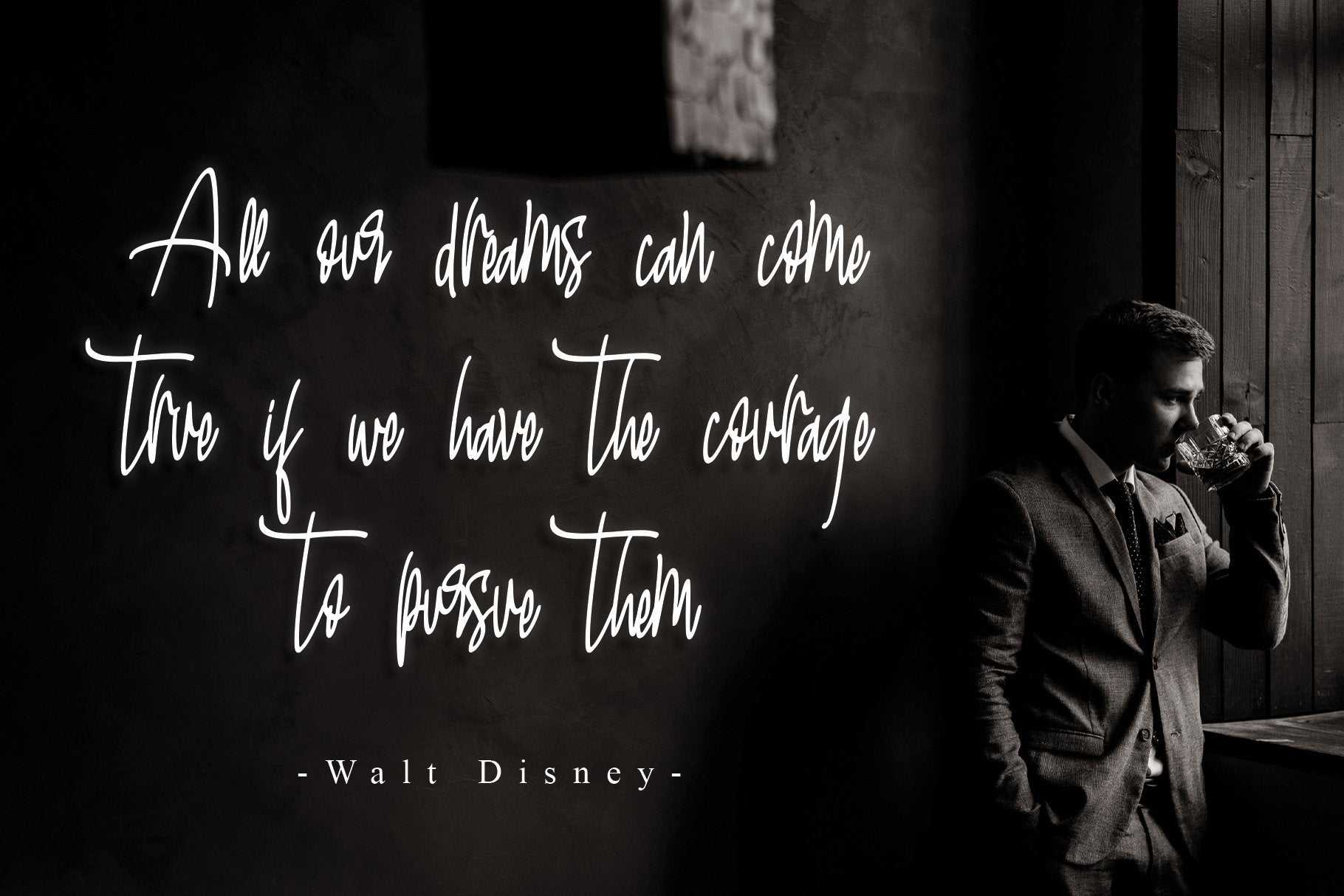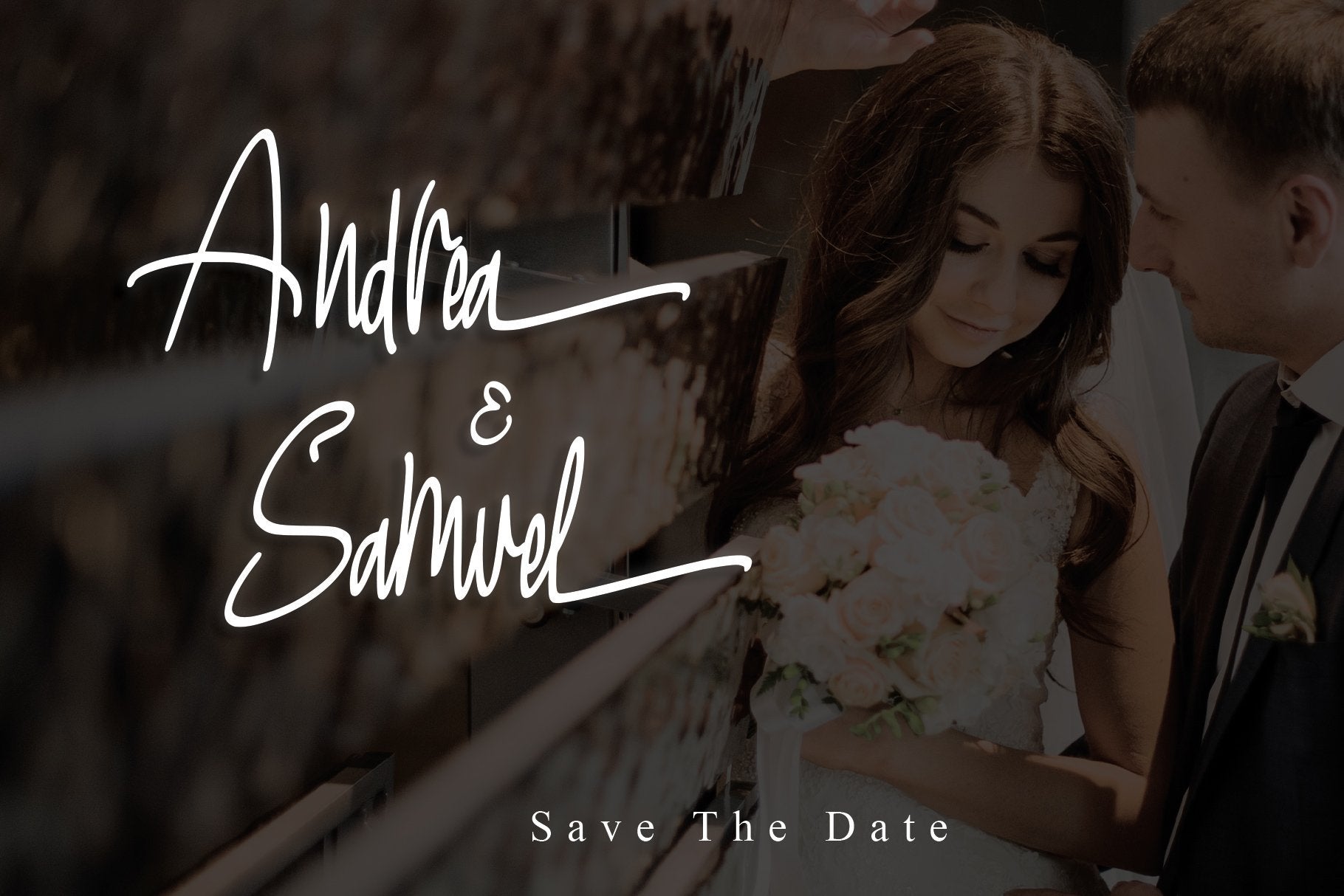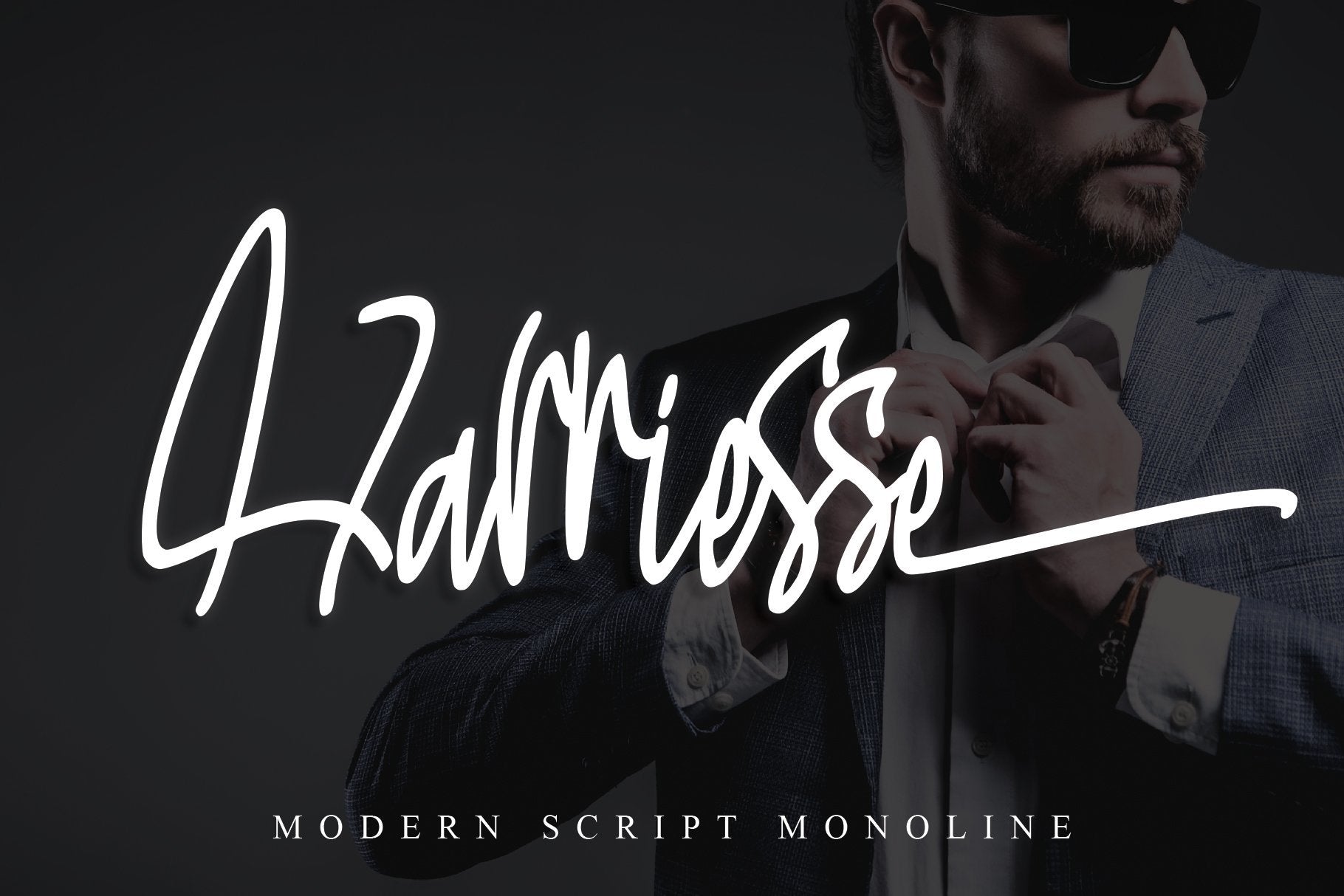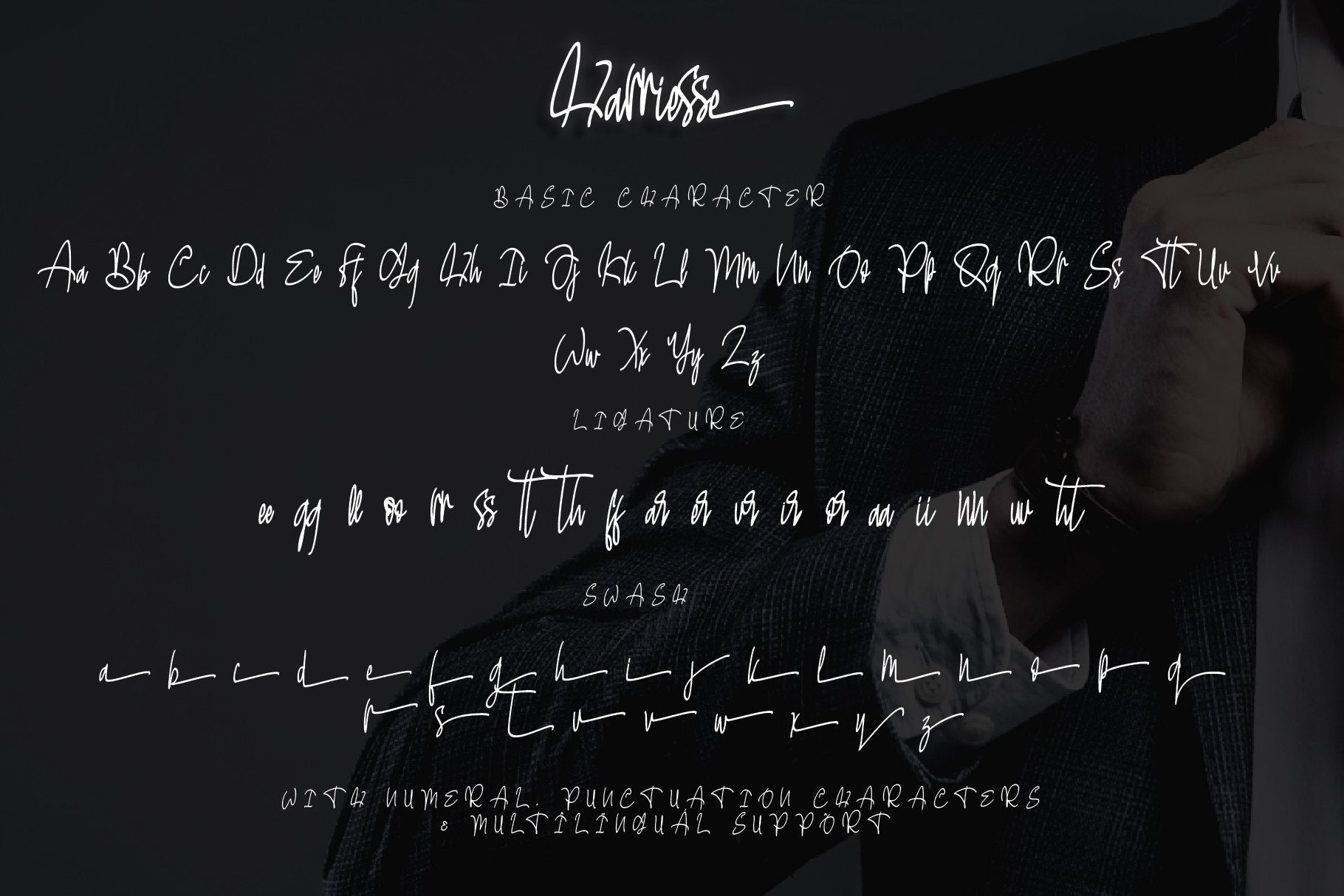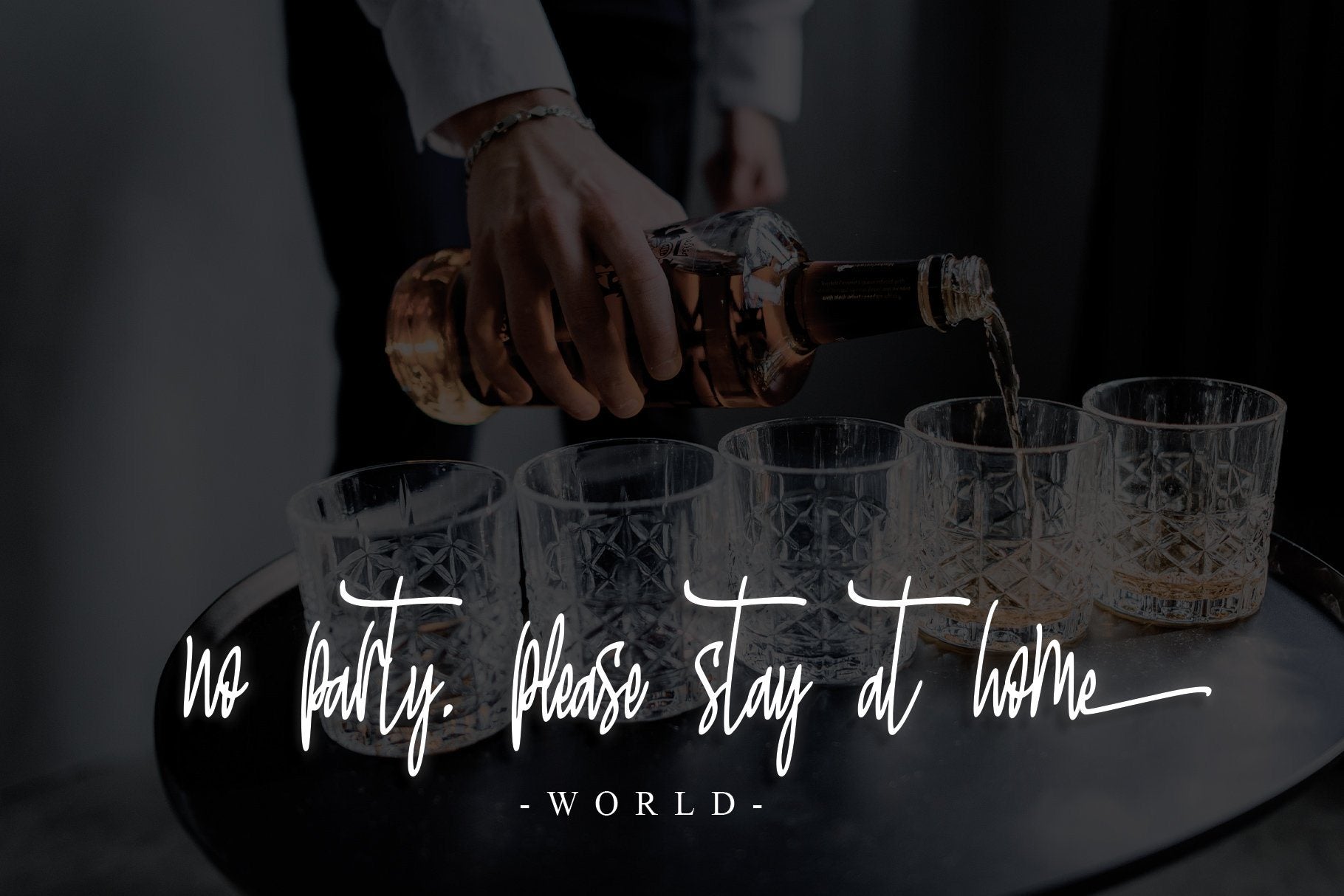
About Harriesse
Harriesse is a monoline script with a modern look. It has good readability and contains lots of glyph’s which give you the chance to give your designs a different look. Harriessecan is used for almost every design. What’s Included : Harriesse (TTF, OTF, WOFF) Harriesse Italic (TTF, OTF, WOFF) Works both on Mac & PC Simple installations Support silhouette Swash & Ligature Accessible in the Adobe Illustrator, Adobe Photoshop, Adobe InDesign, CorelDraw, even work on Microsoft Word. Support multilingual; ä ö ü Ä Ö Ü ß ¿ ¡ To access the alternate glyphs, you need a program that supports OpenType features such as Adobe Illustrator CS, Adobe Photoshop CC, Adobe Indesign, and CorelDraw. More information about how to access alternate glyphs, check out this link ( http://goo.gl/ZT7PqK ) This font is PUA encoded which means you can access all of the playful glyphs and swashes with ease! It also features a wealth of special features including alternate glyphs and ligatures. To stay up to date for my latest job, follow me and let’s be friends because there will be many promos. Our other products: BESTSELLER WELLDONE MILEADILA BEAUTIFUL KISSES ANGELIN GAMOS HERTINA JENNIE ANTIKA AURORA BLACK PINK SIGNATURE California Street BESTOWENS FAMILY